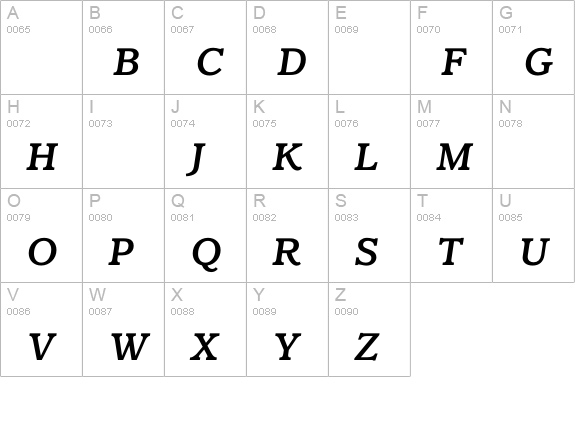
ClaremontMediumItalicOS Font Details
ClaremontMediumItalicOS font is a stylish and versatile typeface that exudes elegance and sophistication. Its medium italic weight strikes the perfect balance between being bold and delicate, making it suitable for a wide range of design projects. The gracefully slanted letters add a touch of flair to any text, making it ideal for headings, quotes, or any other text that needs to stand out. This font is not only visually appealing but also highly readable, ensuring that your message gets across effectively. Whether you're designing a website, crafting a logo, or creating printed materials, ClaremontMediumItalicOS font is sure to elevate your project to the next level. Best of all, ClaremontMediumItalicOS font is free to download at FontsMarket.com. This means you can enhance your designs without any cost, making it a valuable resource for graphic designers, content creators, and anyone looking to add a touch of sophistication to their work. Don't miss out on this fantastic opportunity to elevate your designs with ClaremontMediumItalicOS font!